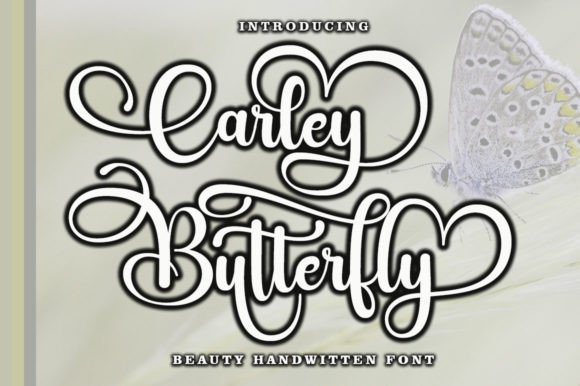
The Carley Butterfly Font: A Timeless Beauty for Your Creative Projects
Have you ever been in the middle of a design project, and suddenly, you’re stuck on finding the perfect font? I recall a recent experience where I was working on a branding project for a client, and I just couldn’t find a font that captured the essence of their brand. That’s when I stumbled upon the Carley Butterfly font, and it completely transformed my design. In this article, I’ll share my journey with this beautiful, timeless handwritten font, and explore its features, uses, and alternatives.
A Personal Review: What I Love About Carley Butterfly
As a designer, I’m always on the lookout for fonts that can elevate my projects. Here’s what I love about Carley Butterfly:
- ✨ Beautiful, timeless design: Carley Butterfly has a classic, elegant feel that’s perfect for creating attractive logos, branding, and quotes.
- ✅ PUA coded: This font is PUA coded, which means you can access all the glyphs and swashes easily, giving you more creative control.
- ✨ Versatile: Carley Butterfly can be used for a wide range of projects, from digital designs to print materials.
While Carley Butterfly is an amazing font, there are a few things to keep in mind:
- ⚠️ Limited availability of certain characters: As with any font, some characters might be limited or require additional installation.
- 🤔 May require some exploration to get familiar with OpenType features: If you’re new to using OpenType features, it might take some time to get comfortable with the various glyphs and swashes.
Carley Butterfly was designed with love and care by a talented font designer. The font’s classic, elegant feel is inspired by traditional handwritten scripts, while its modern twist makes it perfect for contemporary designs.
- Q: What is Carley Butterfly font?
- A: Carley Butterfly is a beautiful, timeless handwritten font perfect for creating attractive logos, branding, and quotes.
- Q: Is Carley Butterfly PUA coded?
- A: Yes, Carley Butterfly is PUA coded, making it easy to access all the glyphs and swashes.